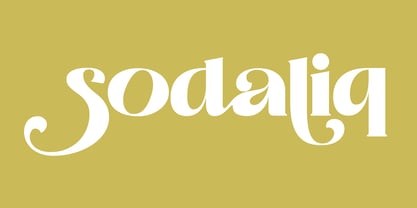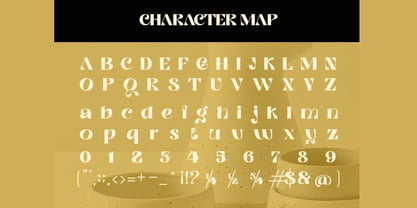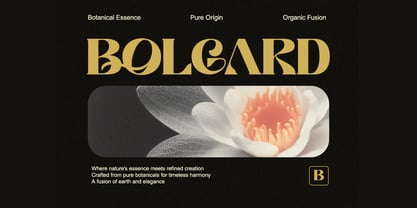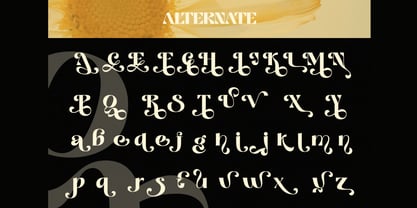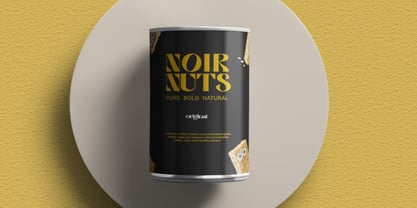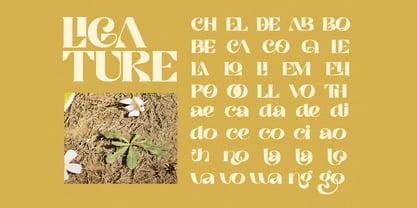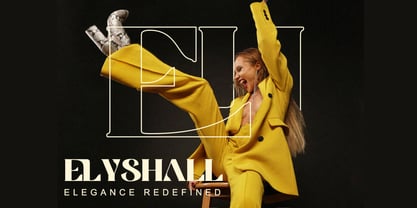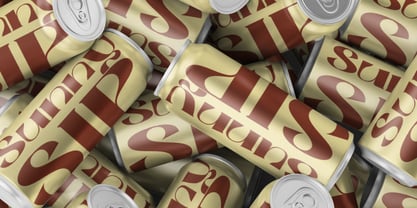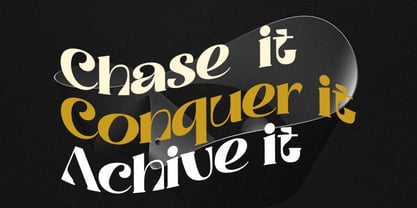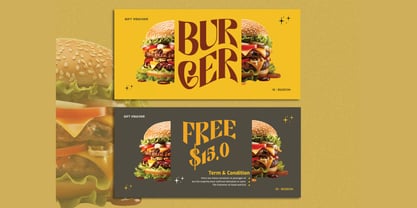
Sodaliq
Sodaliq is a modern elegant serif font crafted with bold curves, expressive swashes, and refined high-contrast letterforms. Designed to make a lasting impression, Sodaliq blends dramatic typography with contemporary elegance, making it the perfect choice for luxury branding, editorial design, and premium creative projects.
Inspired by high-fashion magazines and sophisticated editorial aesthetics, Sodaliq features graceful swashes, stylish ligatures, and artistic alternates that bring personality and exclusivity to every composition. Its carefully balanced serif structure creates typography that feels luxurious, confident, and effortlessly modern.
Whether you're designing premium brand identities, fashion campaigns, magazine covers, luxury packaging, boutique logos, or elegant wedding stationery, Sodaliq transforms ordinary text into refined visual storytelling with timeless appeal.
Key Features:
• Modern Elegant Serif Design: Sophisticated letterforms with bold curves and refined proportions.
• Regular & Italic Styles: Versatile font pair for dynamic and creative typography.
• Uppercase & Lowercase Characters: Complete character set for professional design projects.
• Alternates & Ligatures: Beautiful features for expressive and unique typography.
• Expressive Swashes: Decorative flourishes that add elegance and visual impact.
• Luxury High-Contrast Serif: Editorial-inspired strokes for a premium appearance.
• Multilingual Support: Includes accented characters for international projects.
Perfect For:
• Luxury Branding & Logo Design: Create prestigious and memorable brand identities.
• Editorial Layouts & Magazine Covers: Ideal for headlines, fashion editorials, and publishing.
• Boutique & Fashion Branding: Perfect for luxury fashion labels and lifestyle brands.
• Premium Packaging Design: Enhance cosmetics, perfumes, skincare, jewelry, and boutique products.
• Wedding Invitations & Stationery: Add timeless sophistication to elegant events.
• High-End Advertising: Produce visually striking marketing campaigns.
• Social Media Content: Design polished graphics with editorial-quality typography.
• Creative Studio Projects: Ideal for premium presentations and visual identities.
Elevate your creative projects with Sodaliq—a modern elegant serif font featuring expressive swashes, stylish ligatures, artistic alternates, and luxurious high-contrast letterforms. Perfect for luxury branding, editorial layouts, fashion campaigns, boutique logos, premium packaging, wedding stationery, magazine covers, and sophisticated visual identities that demand attention and timeless elegance.